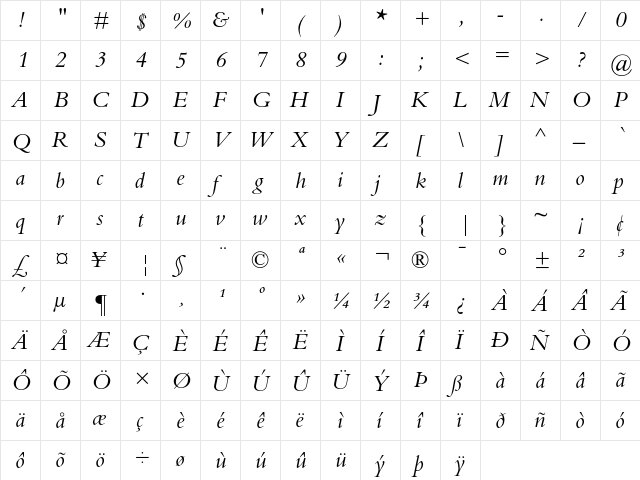
Bembo Italic
Design Context for Bembo Typeface
Bembo is a composed and adaptable typeface that performs quietly and consistently across a wide range of design contexts. Its italic angle brings a sense of urgency and motion to the letterforms.
Pro Tip: Use Bembo for emphasis, pull quotes, and subheadings where its slanted energy can add rhythm to the layout.